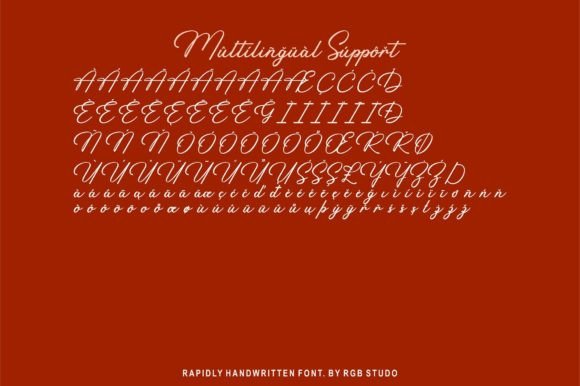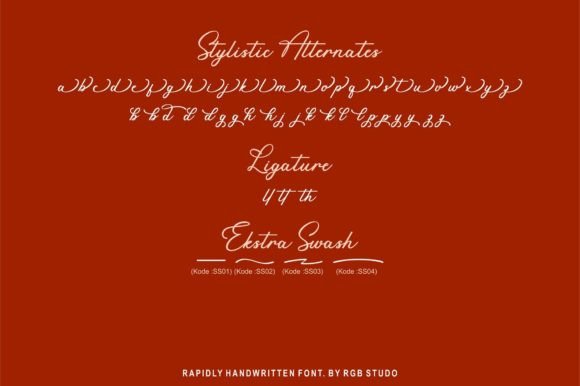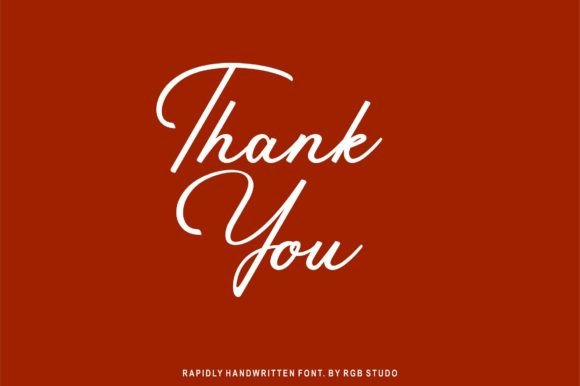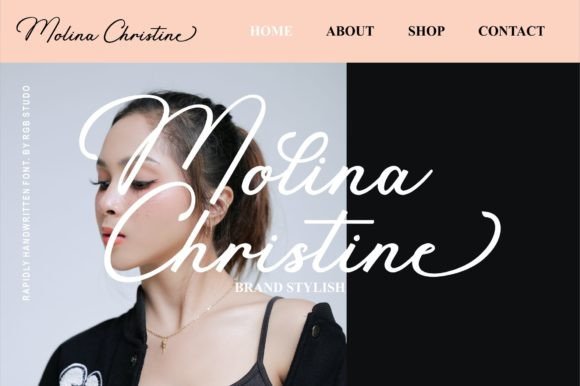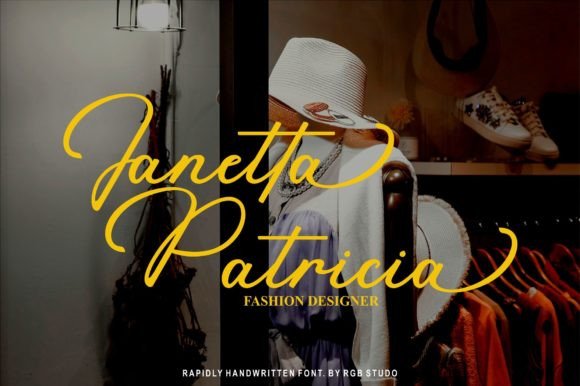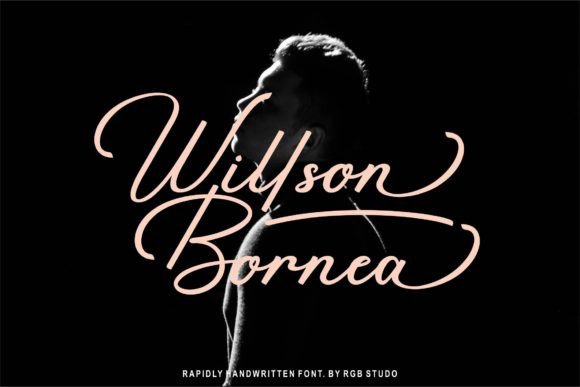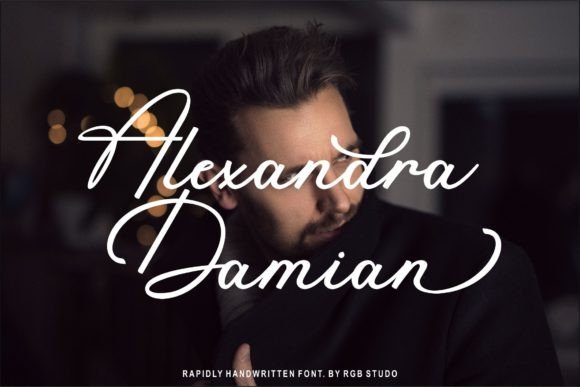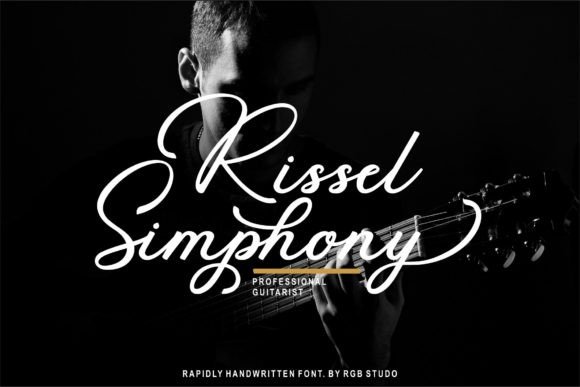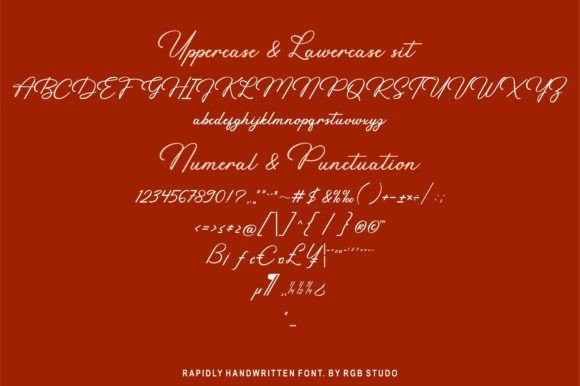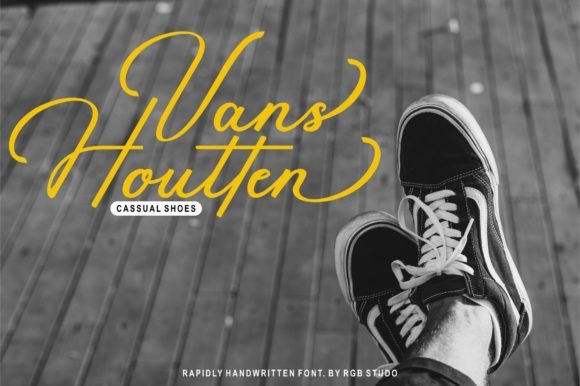
Rapidly Font
**Rapidly** is a stylish signature script typeface that brings a fashionable and super cool handwritten vibe to your projects. Crafted to enhance the attractiveness of your products, this font is designed with precision to mimic a natural handwritten script, making it versatile and suitable for a wide range of applications in various media.
The handwritten script style of **Rapidly** adds a touch of authenticity and naturalness to your designs. The carefully crafted characters create a look that feels personal and unique, making it a perfect choice for projects that require a handwriting taste.
In branding projects, **Rapidly** becomes a defining element that adds a stylish and contemporary touch to your brand identity. Its signature script conveys a sense of elegance, making it suitable for businesses that want to establish a modern and attractive image.
For wedding designs, social media posts, and advertisements, the font brings a fashionable and cool aesthetic. Its script typeface enhances the visual appeal, making your content stand out and leave a memorable impression.
In product packaging, label design, and product photography, **Rapidly** adds a personalized and handmade touch. The signature script is perfect for creating a connection with the audience and conveying a sense of craftsmanship.
Whether used in watermarks, invitations, stationery, or any other project that requires a handwritten flavor, **Rapidly** shines as a font that caters to a diverse range of creative applications.
In summary, **Rapidly** is a versatile and stylish signature script typeface that elevates the visual appeal of your projects. Whether you’re working on branding, social media, product packaging, or any other design endeavor, let **Rapidly** be the font that adds a cool and fashionable touch to your creations.